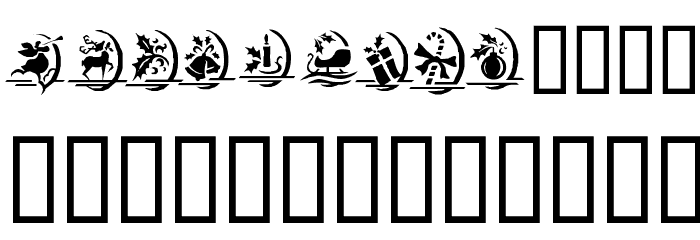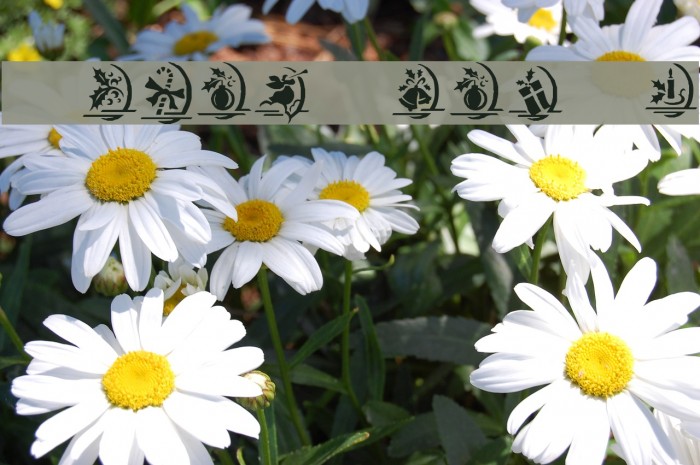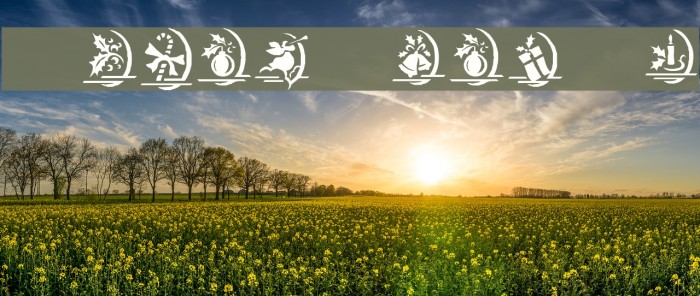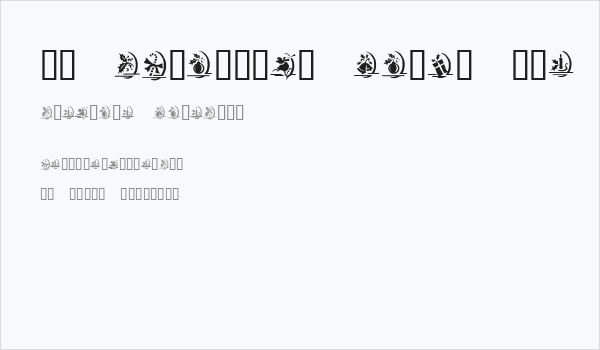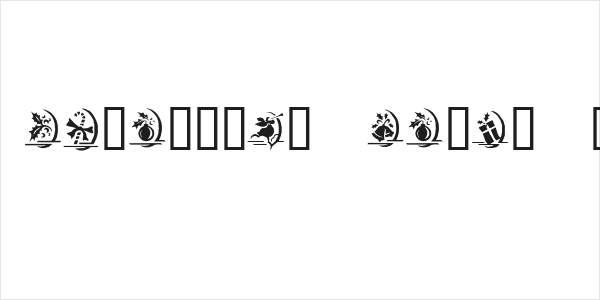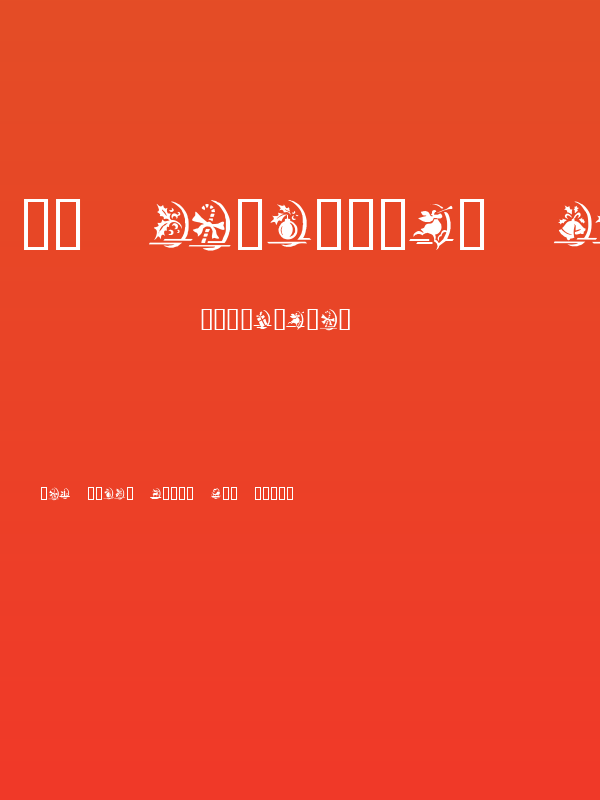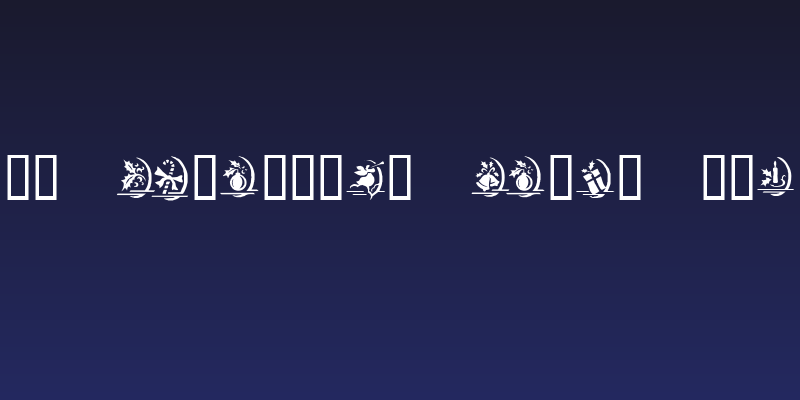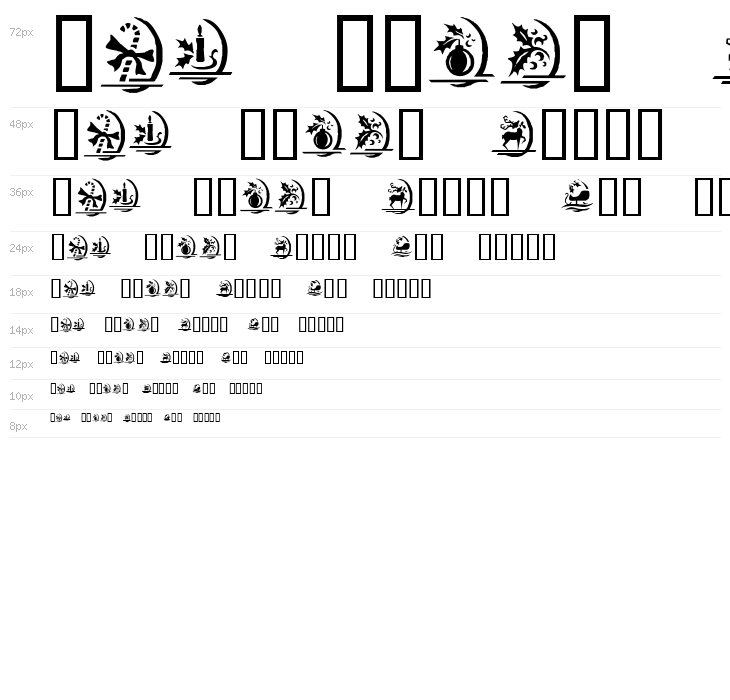
KR Christmas Dings One Font
KR Christmas Dings One Description
This is a decorative dingbat font featuring a variety of Christmas-themed icons. Each character is represented by a unique festive symbol, such as reindeer, holly leaves, bells, candles, sleighs, gifts, and more. The icons are enclosed within a circular design, giving them a cohesive and ornamental appearance. The style is playful and whimsical, perfect for adding a touch of holiday spirit to any project. The icons are bold and easily recognizable, making them suitable for both digital and print media.
| Use Case | Logos, Headlines, Decorative elements |
| Proposed Projects | Ideal for holiday greeting cards, festive invitations, Christmas-themed posters, and seasonal decorations. |